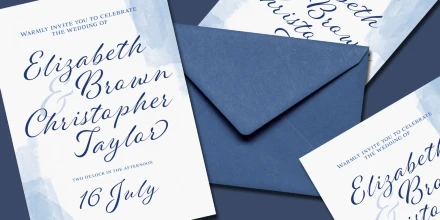
Ganache
Ganache is a smart, intricate, fun, and deceptively simple font. This distinctive hybrid is a unique blend of script, Roman, and italic. My fascination with letter-fitting makes this an intriguing exercise in negative space. The uppercase letters are boldly stylish, and here some of the counters display unexpected shapes. Between some letters, the negative space is transformed into a type of swash itself. Customize your design with Ganache’s 185 swashes and alternates and 10 ornaments.
• Common Ligatures
• Ornaments
• Stylistic Alternates
• Stylistic Sets
• Swashes
• Titling Capitals